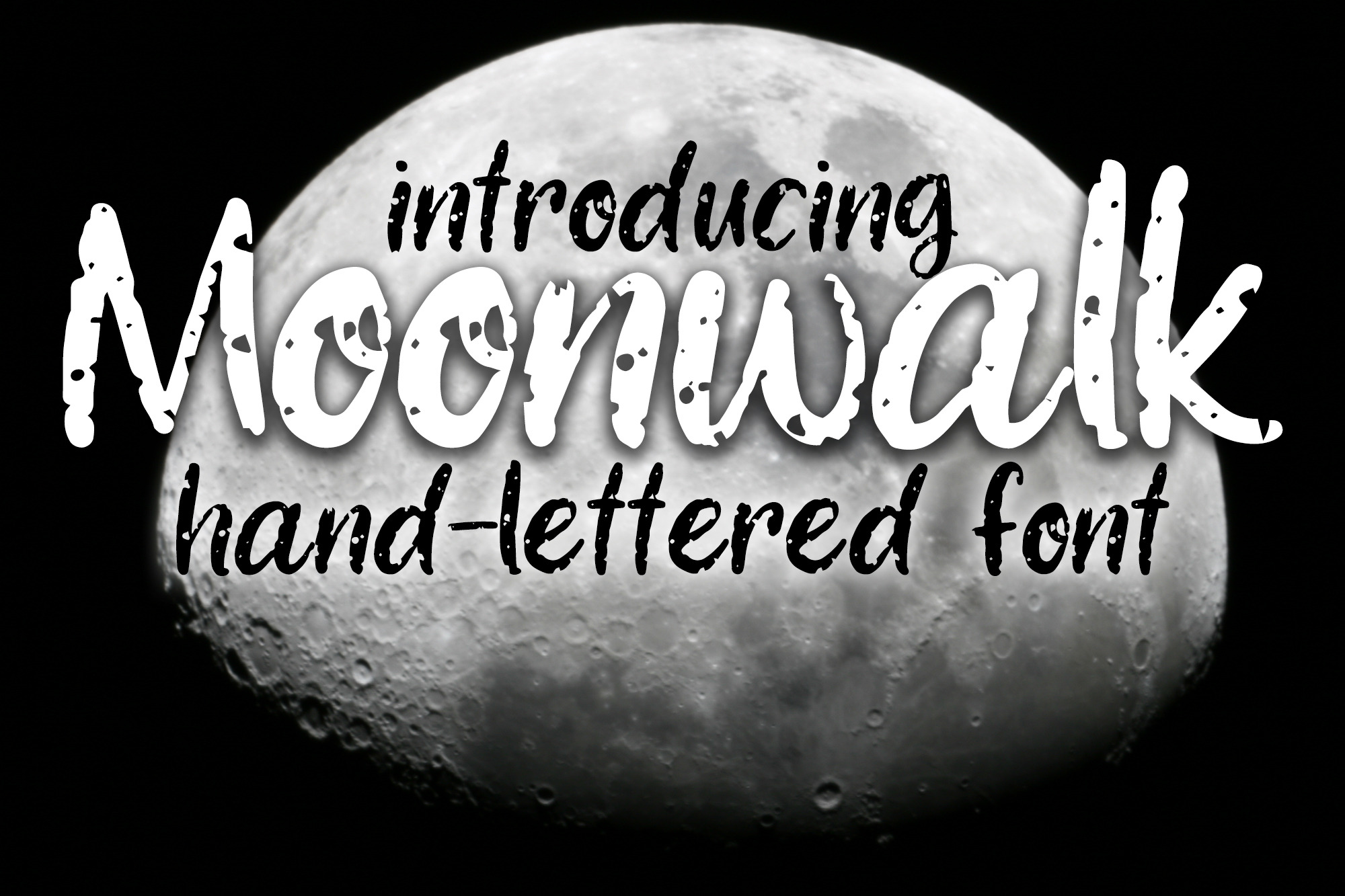
Moonwalk hand-lettered font
Moonwalk is a hand-lettered font that will add a unique touch to your projects. Each character has little holes and craters, kind of like a moon rock, creating a fun, funky texture. This font is great for products, posters, and logos and can be used for both personal and commercial projects.
- Common punctuation
- Diacritics
- Western European language support